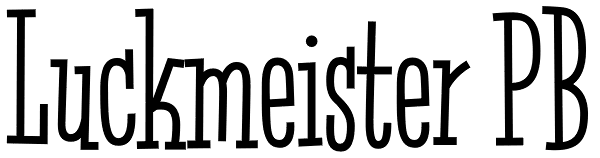
Luckmeister PB
From the vintage record cover, "Music from MR. LUCKY", composed and conducted by Henry Mancini, comes this offbeat and full of life condensed serif typeface. A uniform stroke structure and a light baseline bounce give this typeface a festive yet...